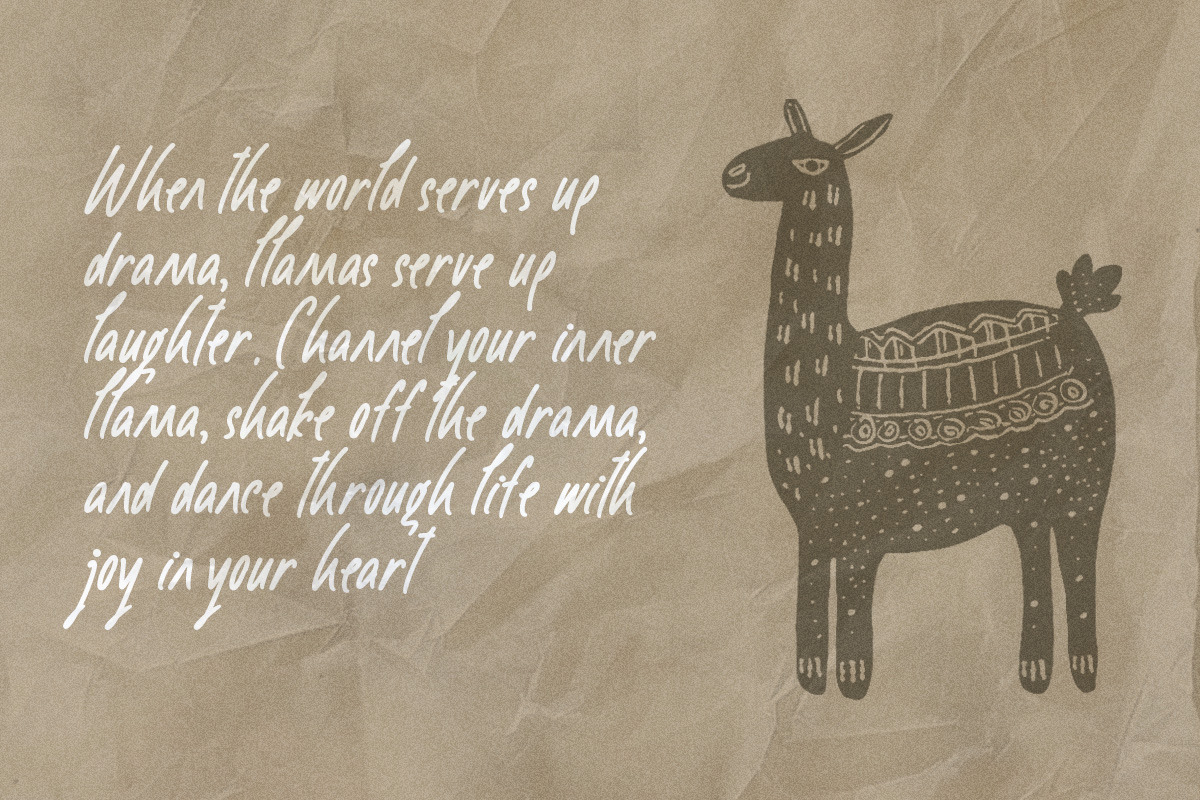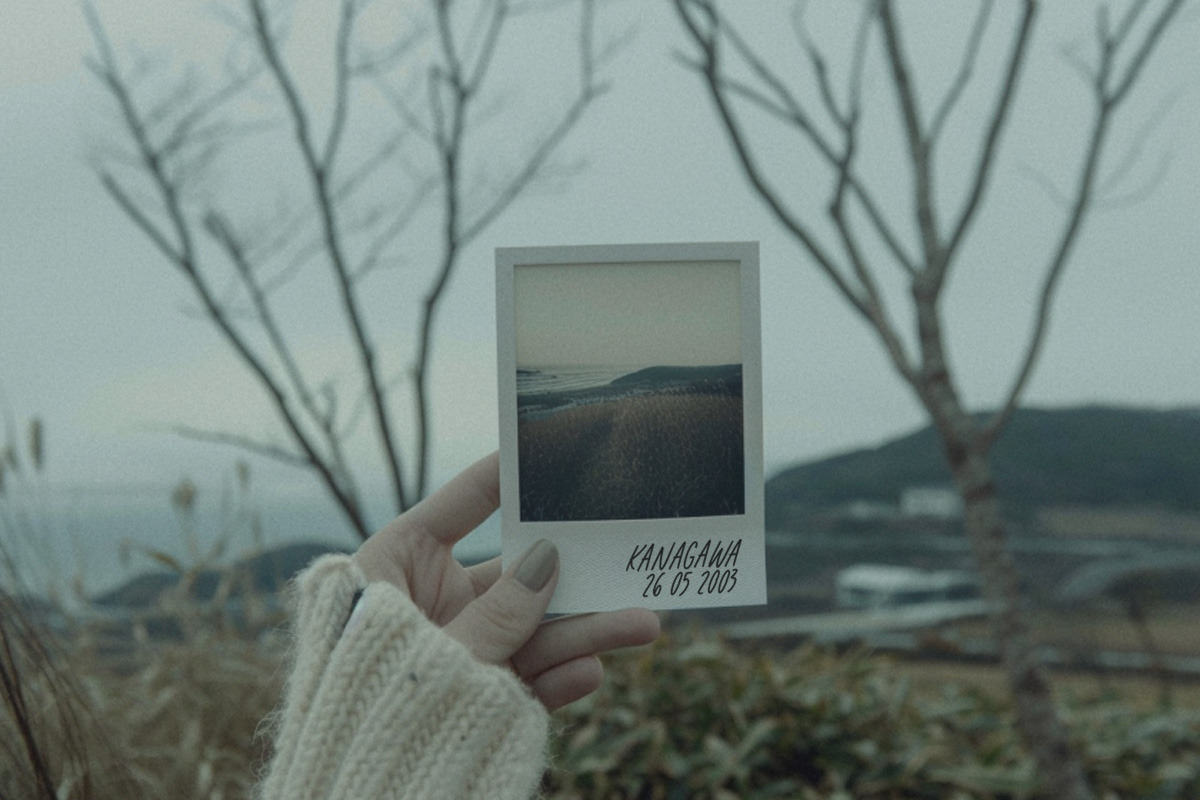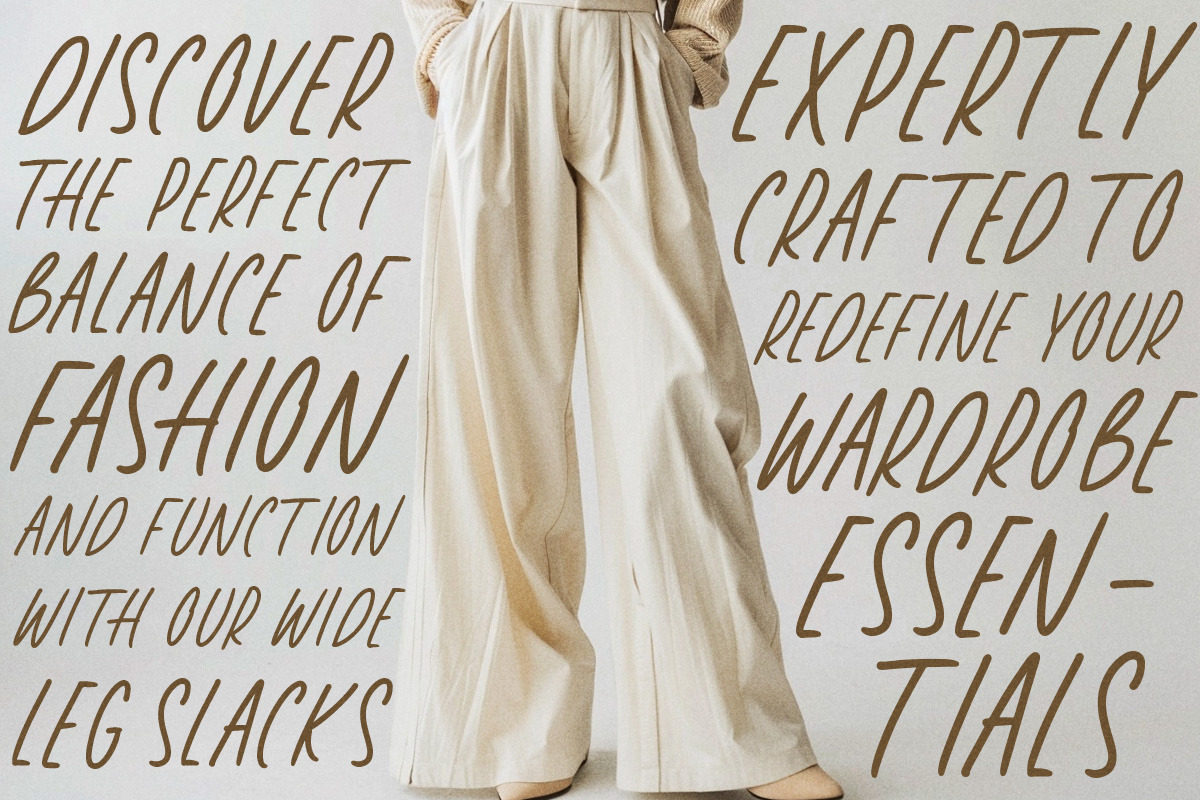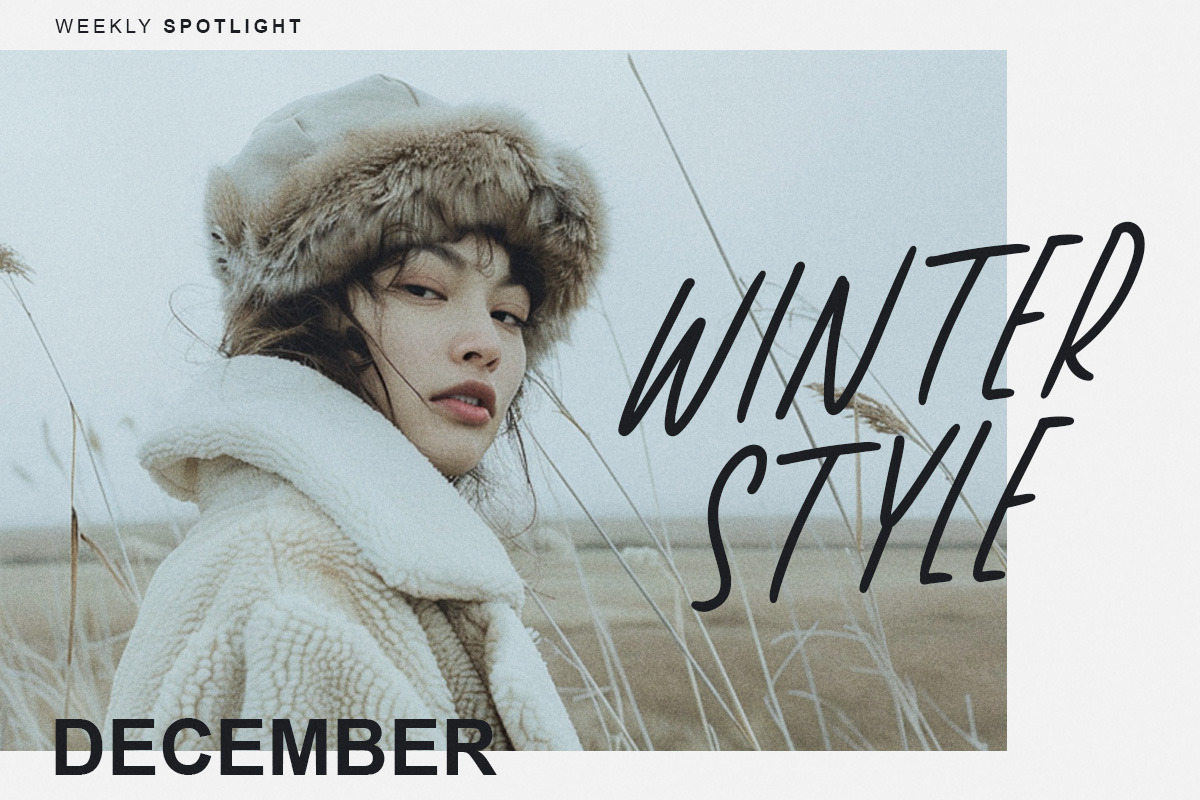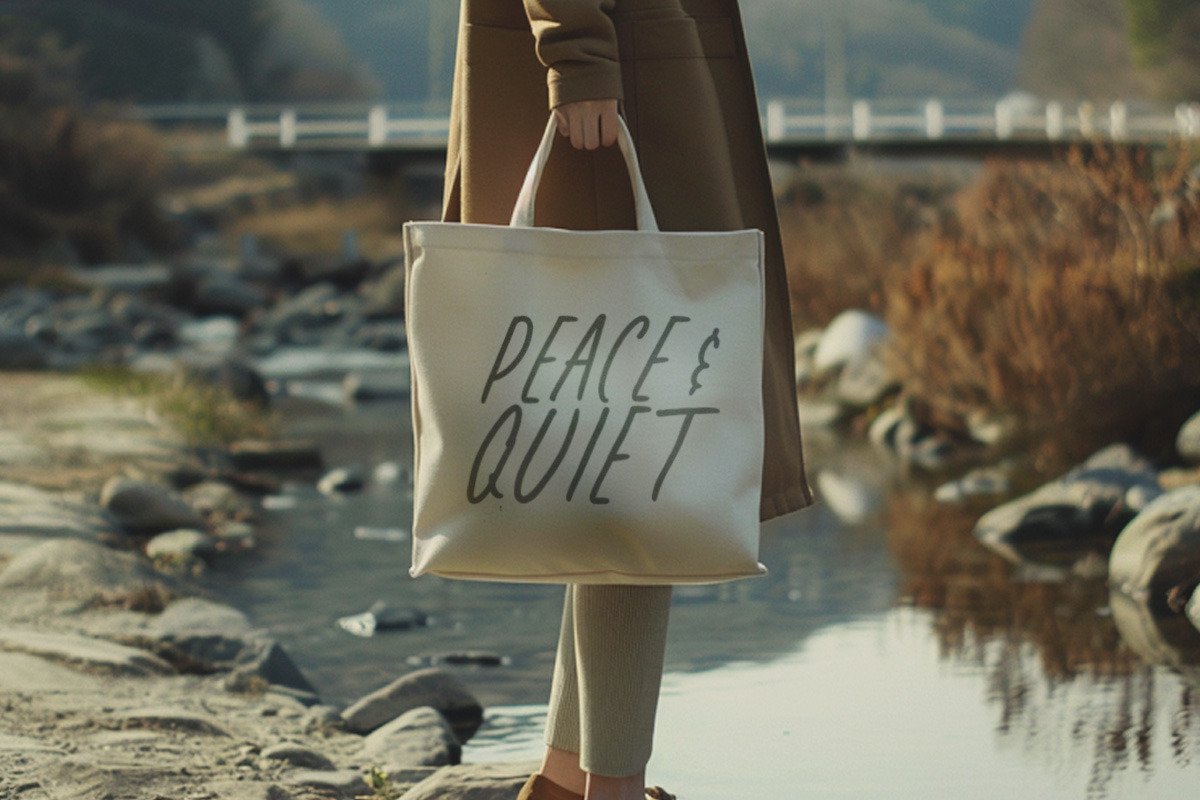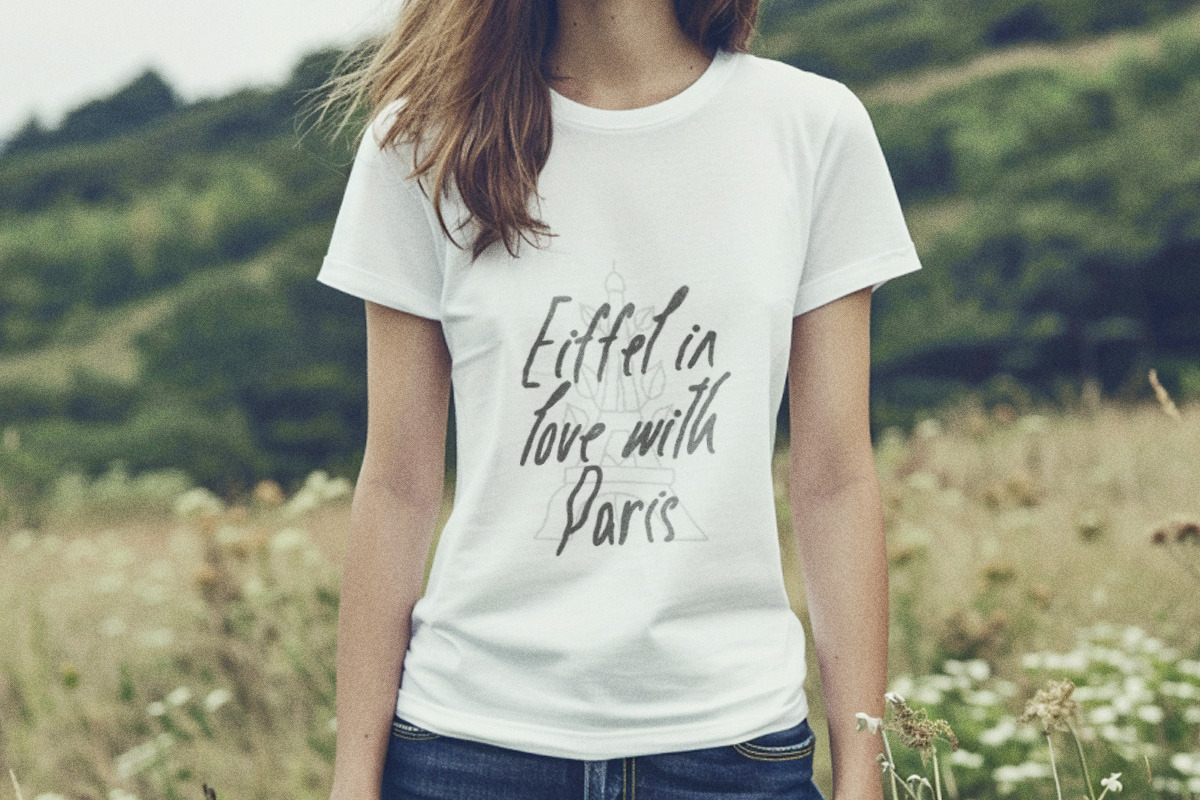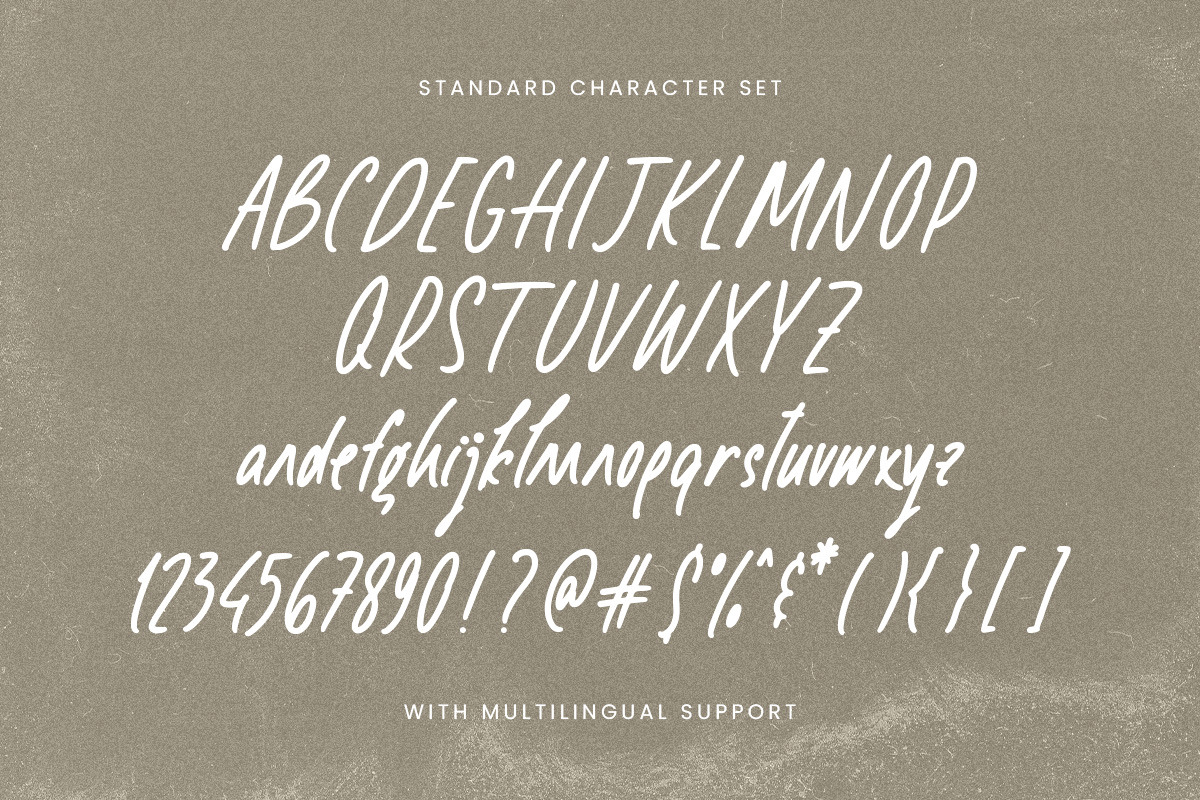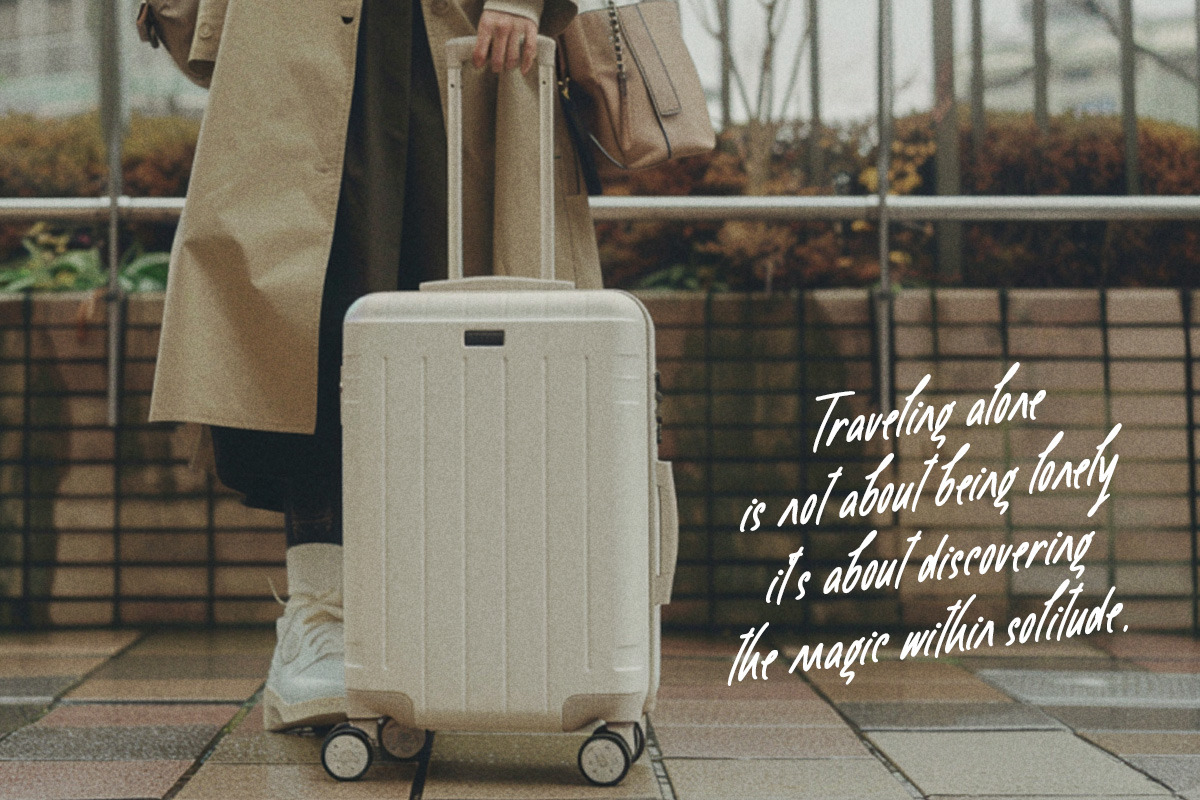
Smile Brightly Handwritten
Introducing Smile Brightly , a monoline hand-written font that will add a touch of casual to your designs. This font has a charming vibes that makes it perfect for projects that require a friendly and approachable feel. The letters are slightly wider than usual, giving it a modern yet comfortable appearance.